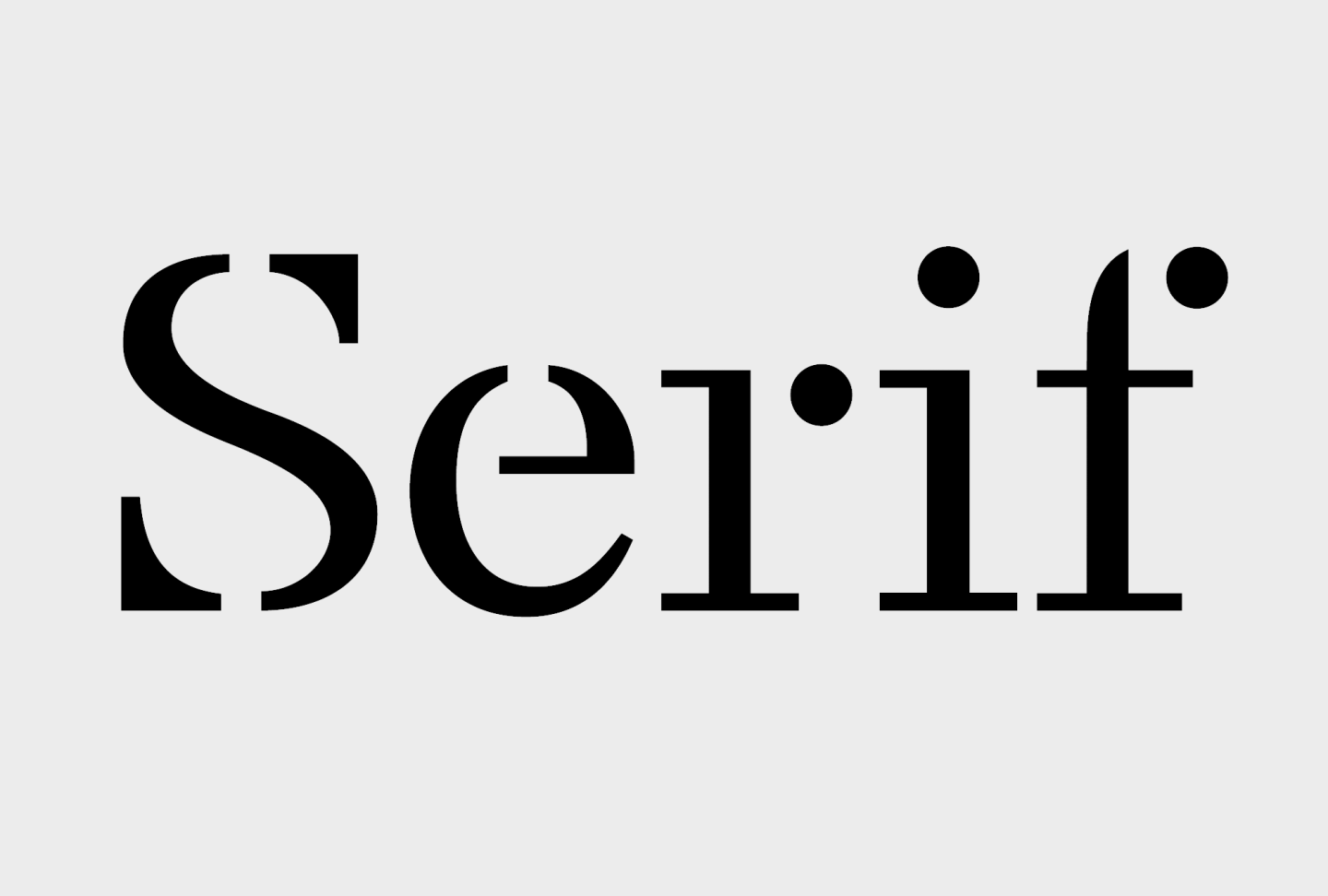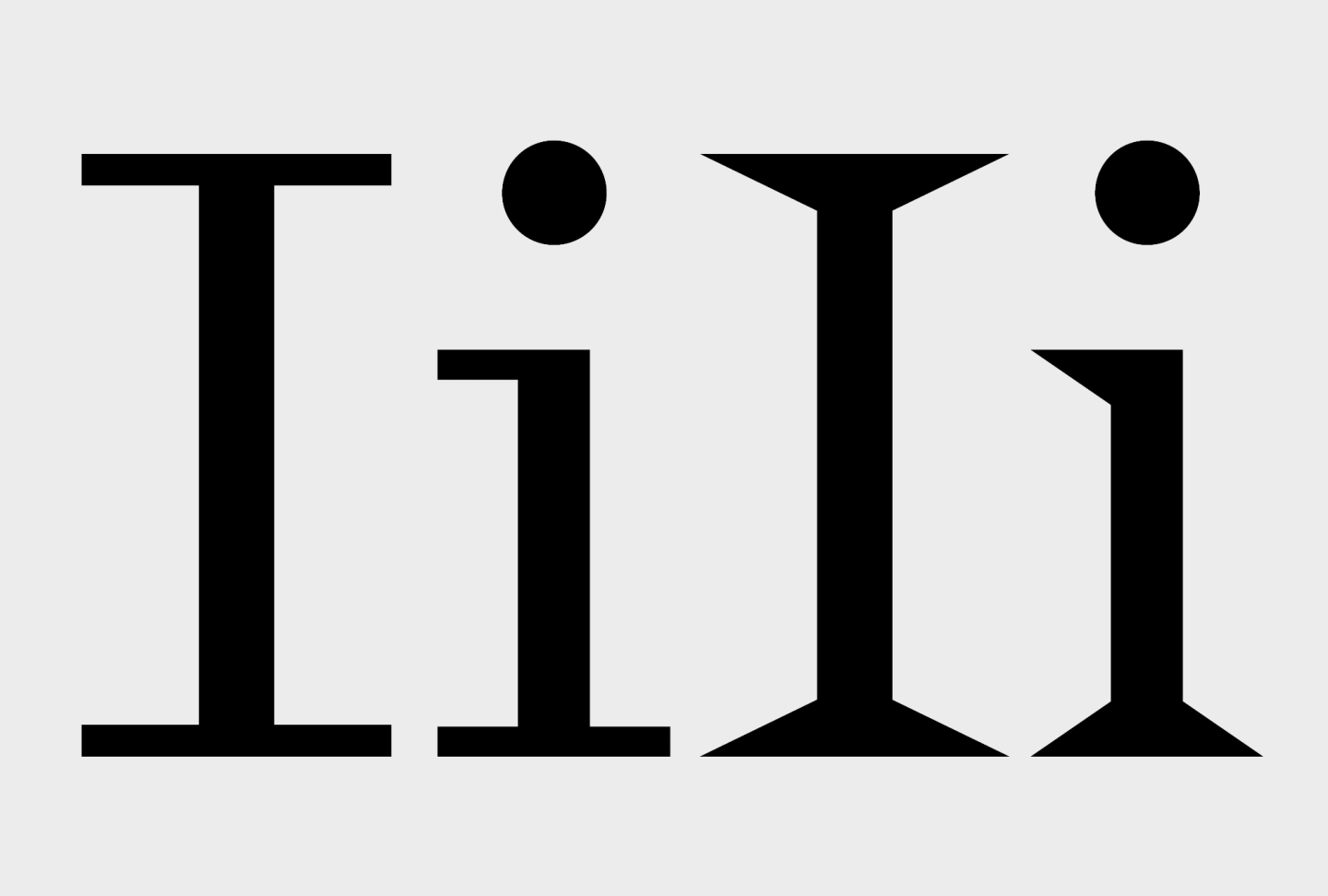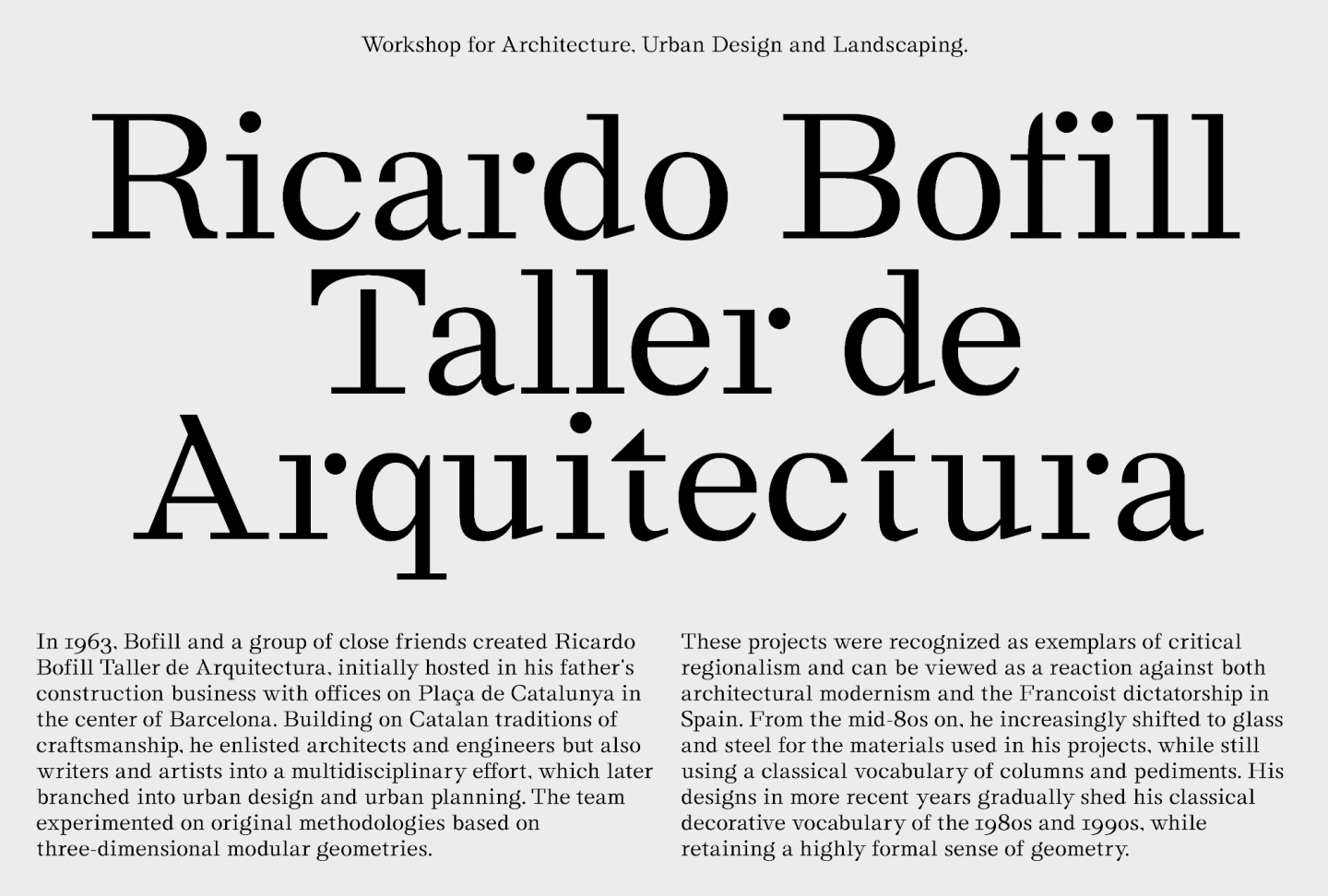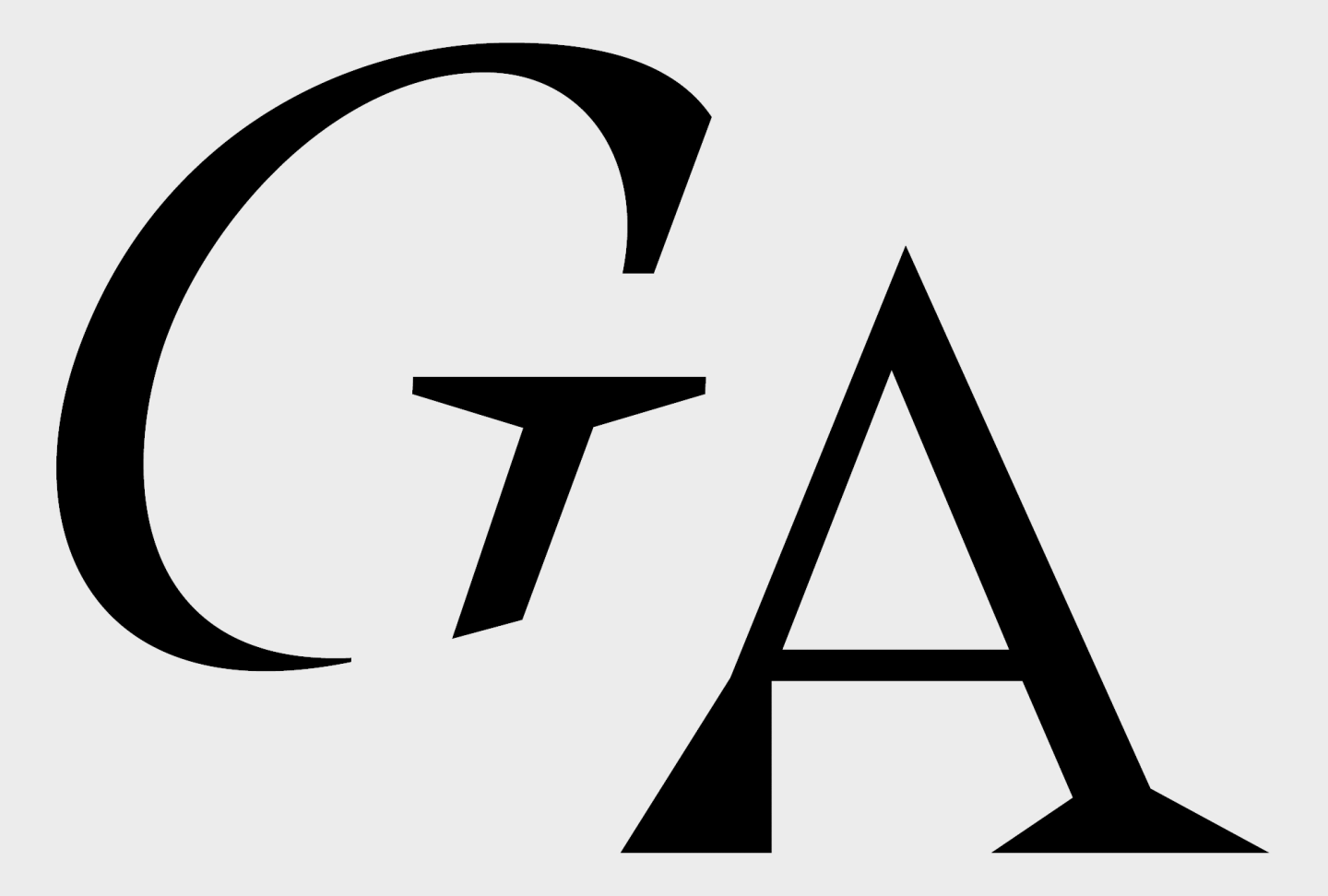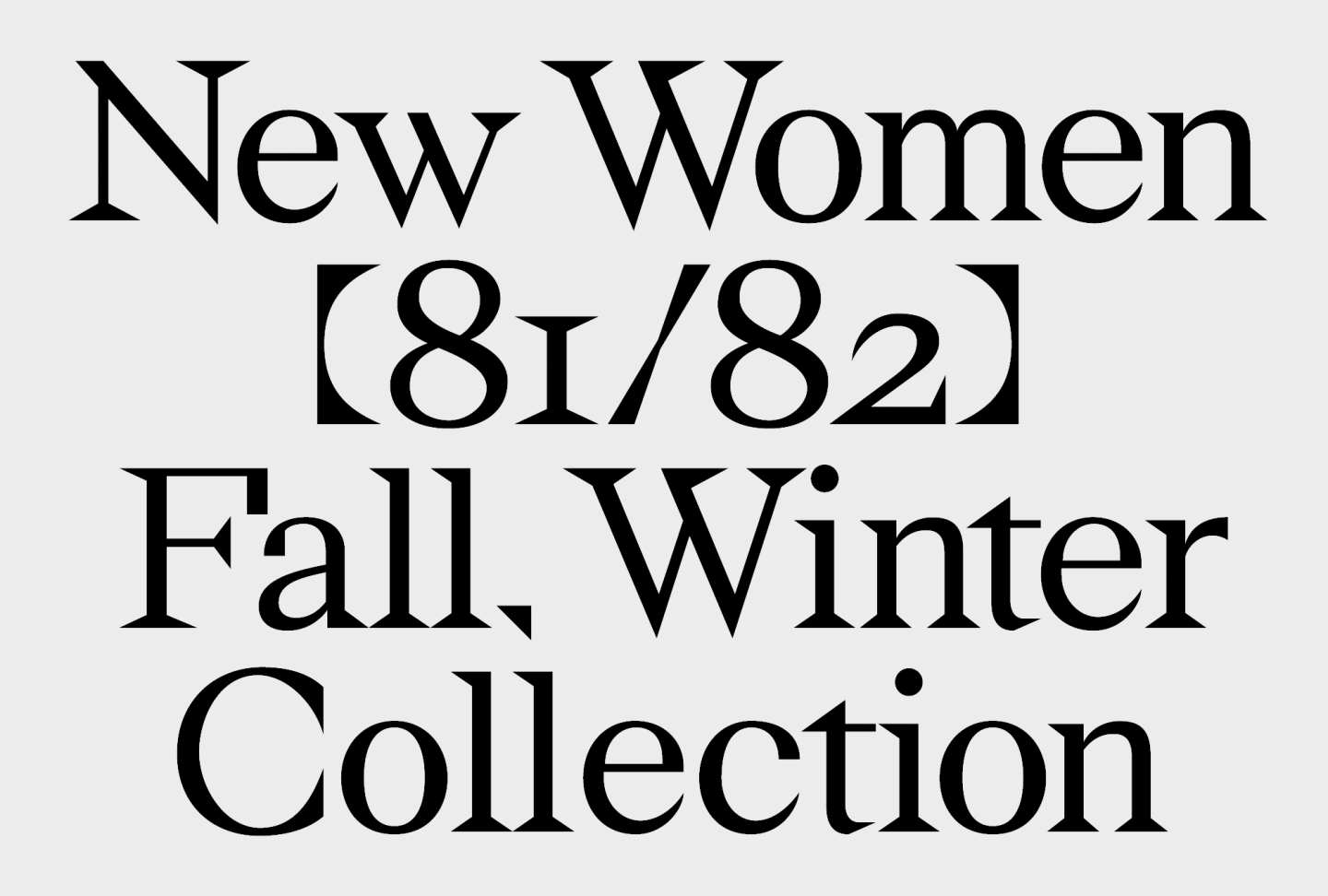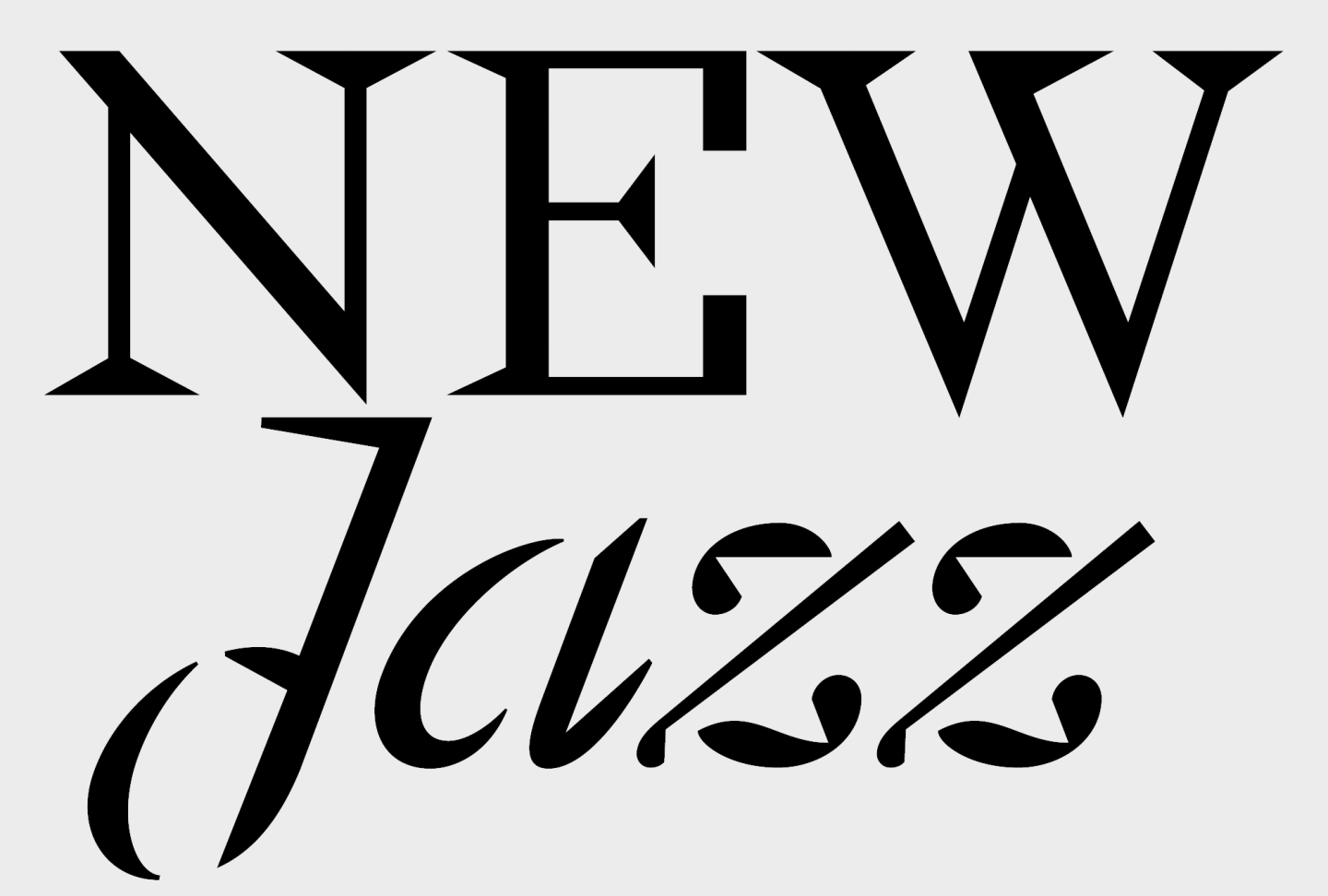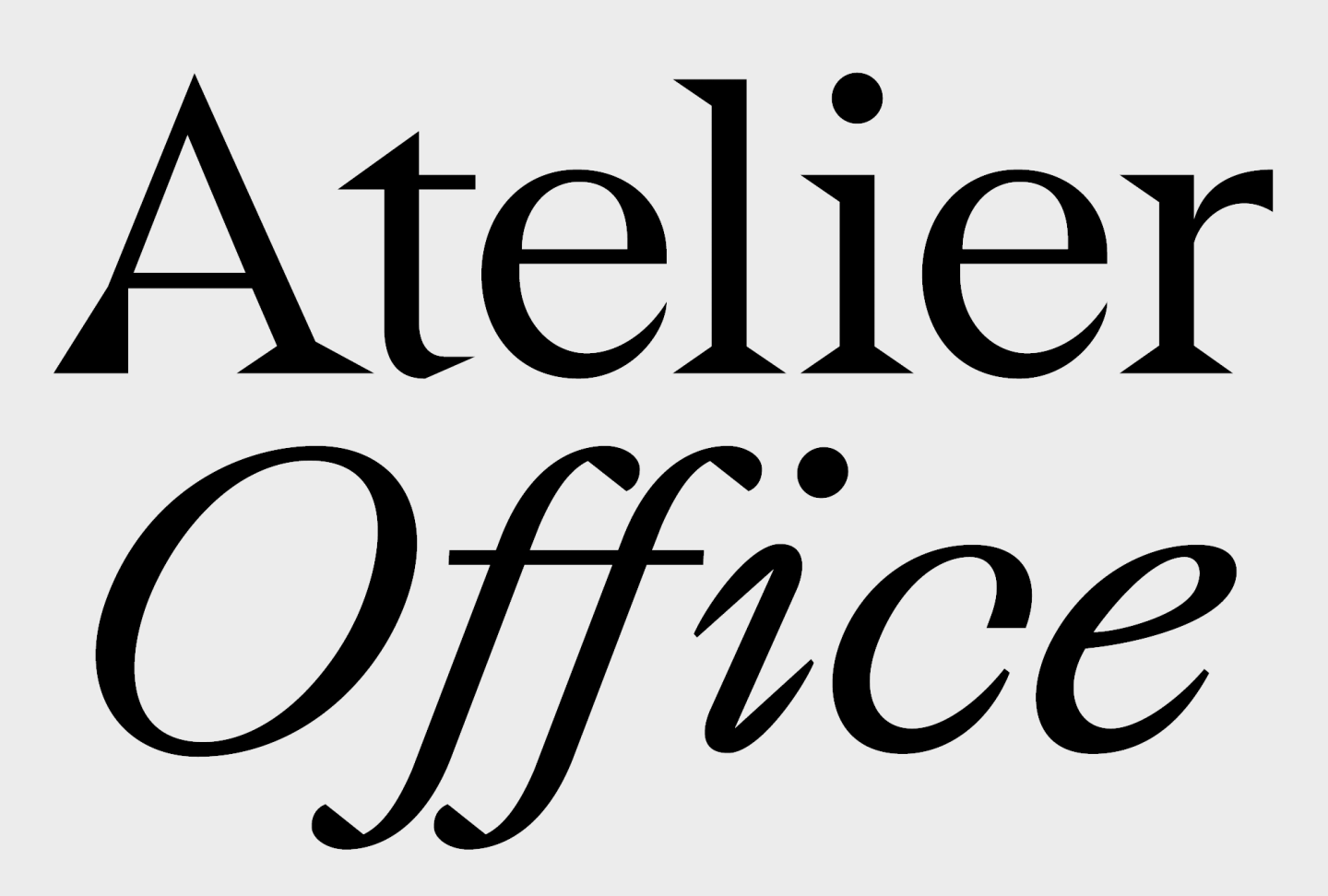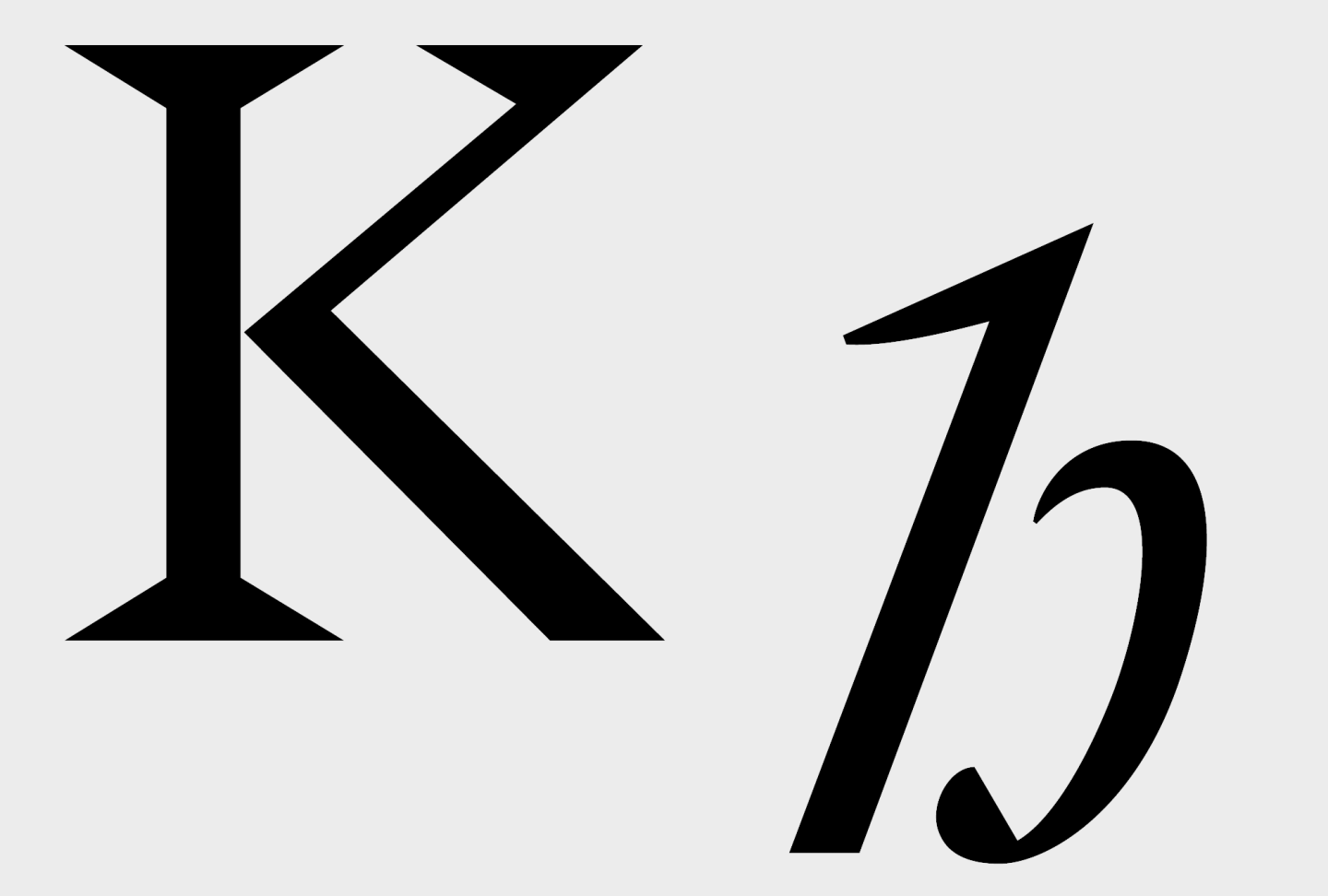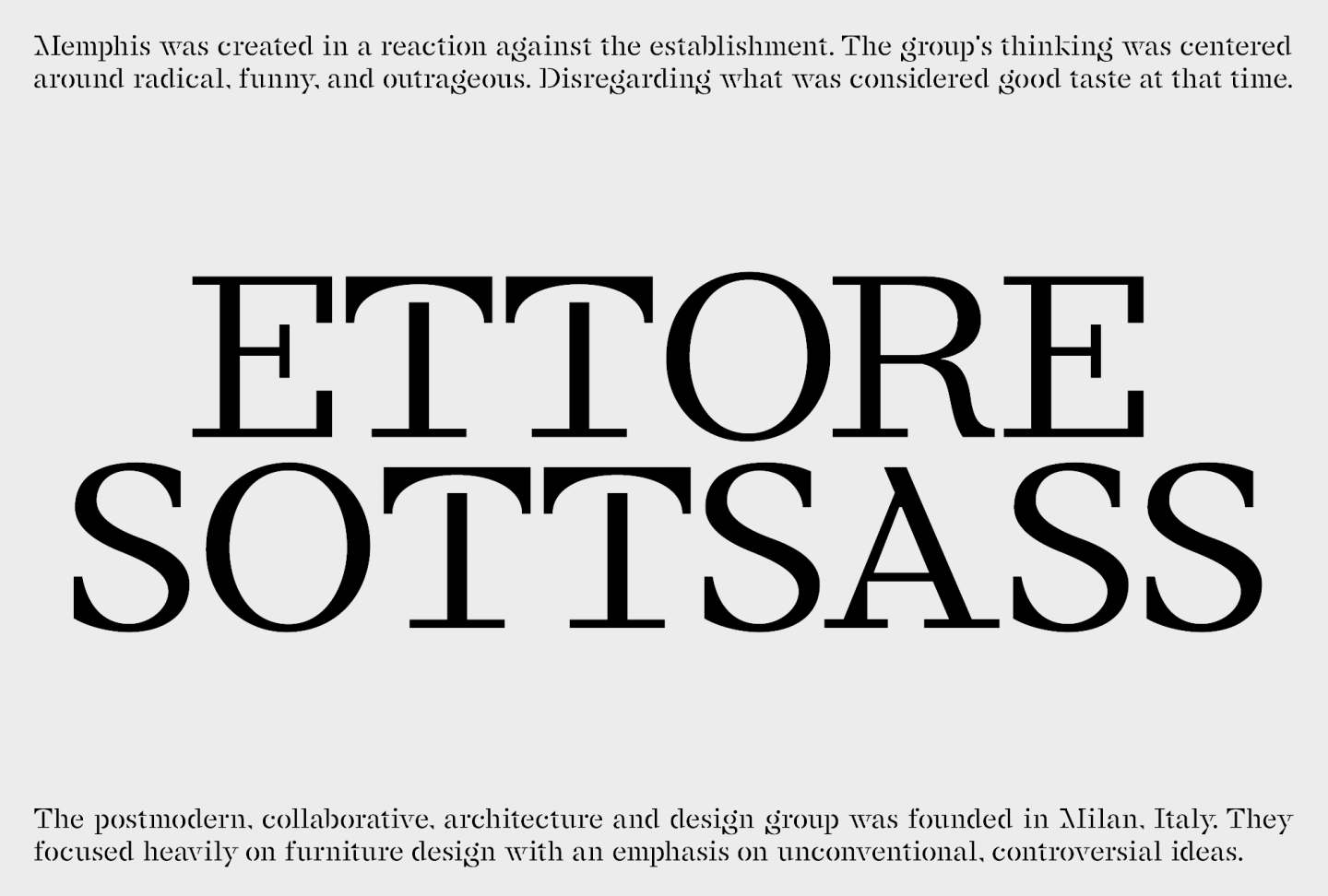
Stellage is a versatile geometric serif typeface with square and triangular serifs. Inspired by the visual culture of postmodern architecture and design. You could imagine every character of Stellage as a little building where modern and classical shapes meet. The result is a sharp serif that offers great legibility in small sizes with interesting details as a display typeface.
Geometric Serif